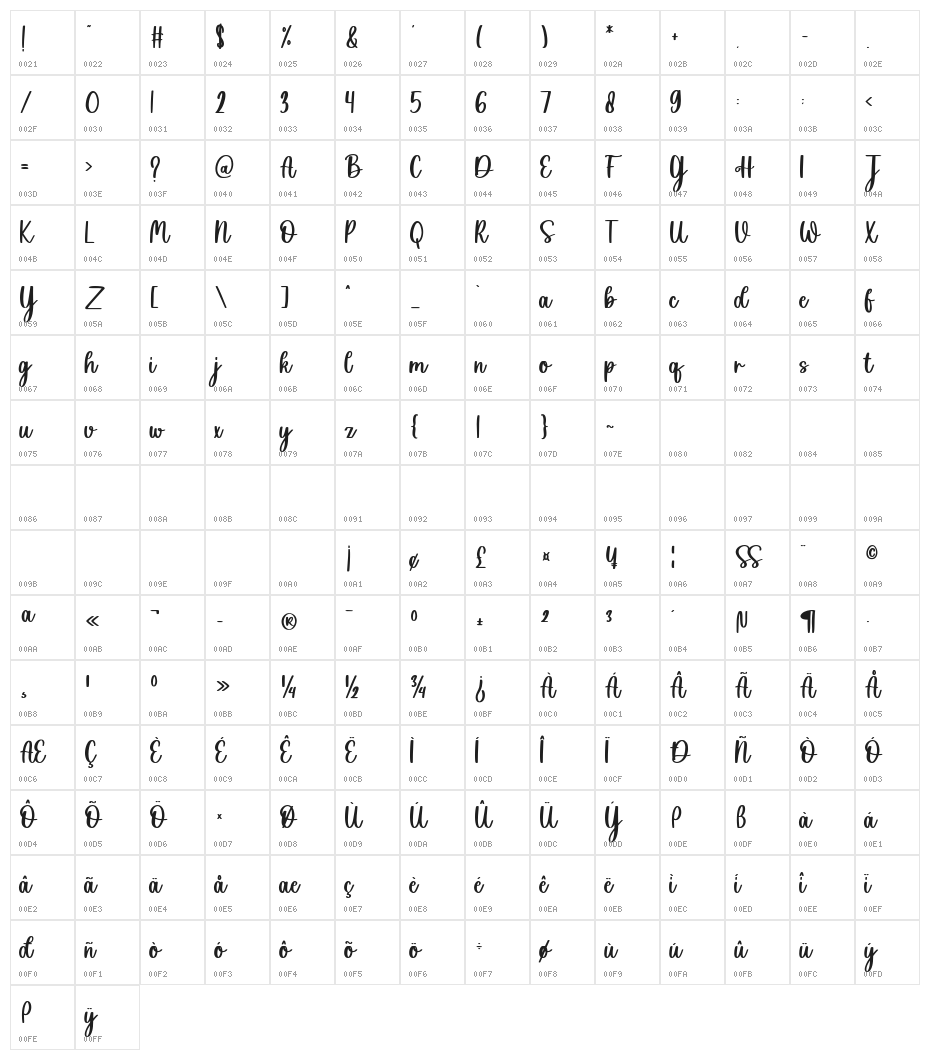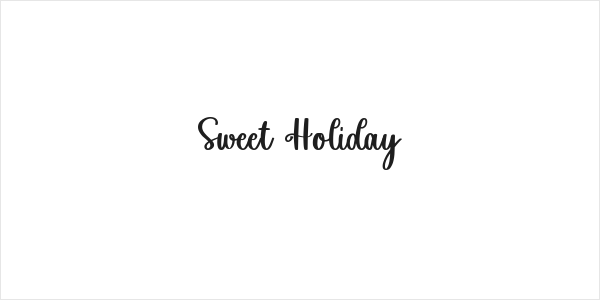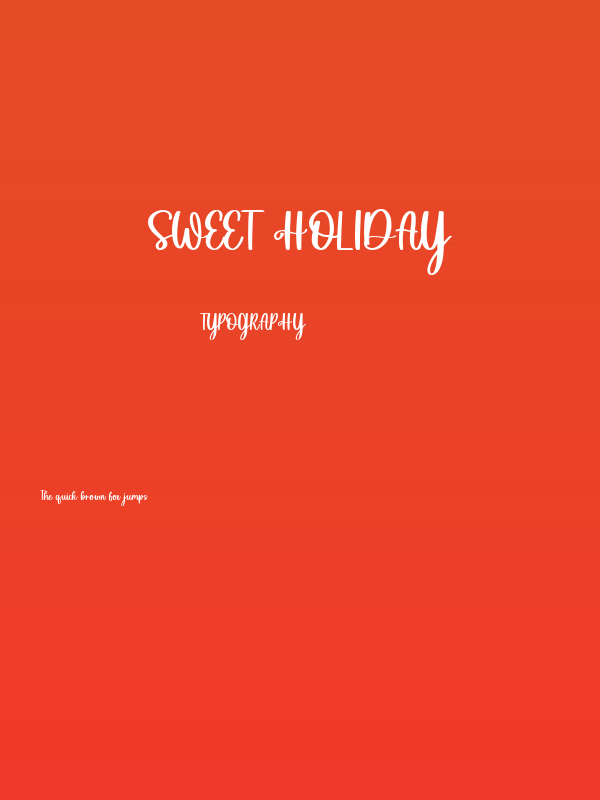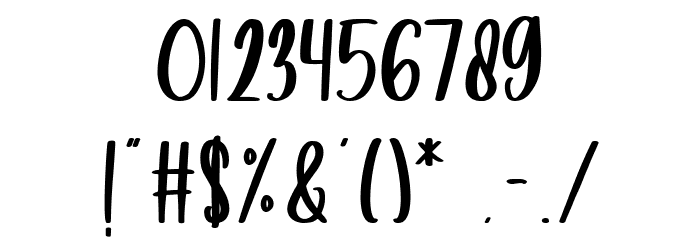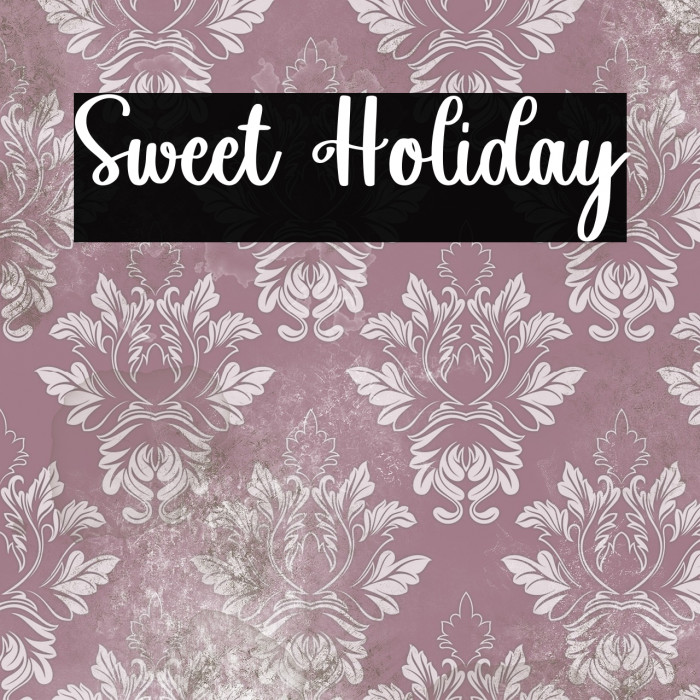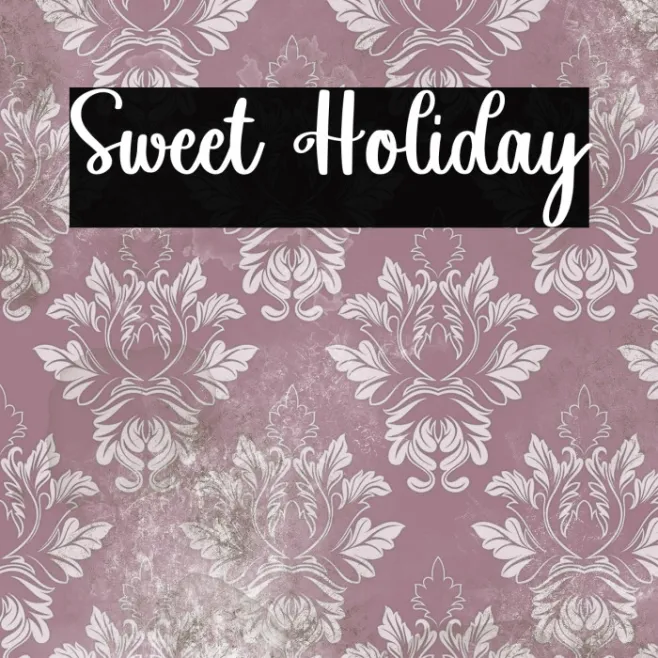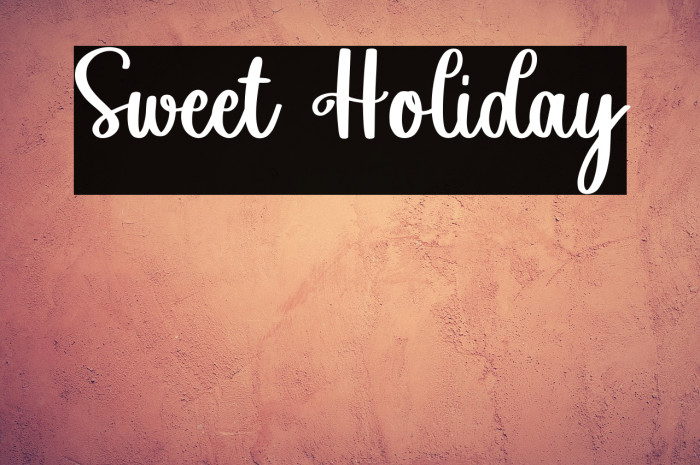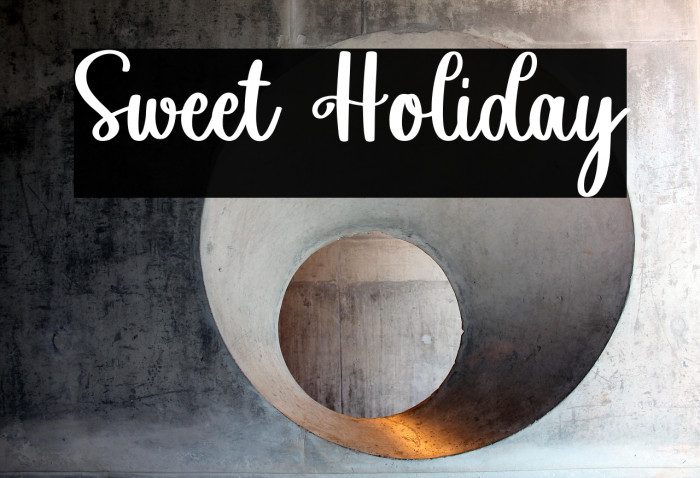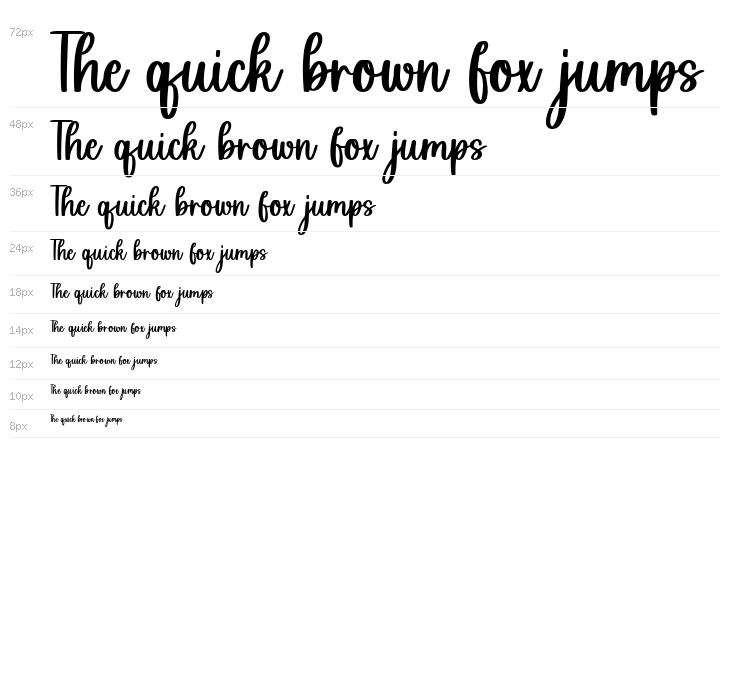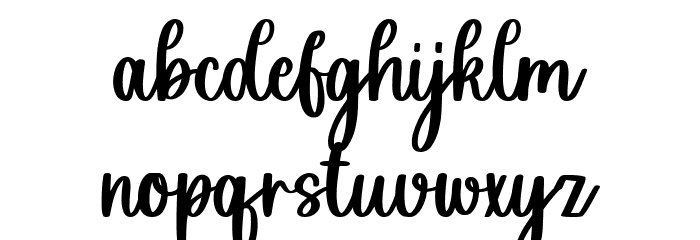
Sweet Holiday Font
Sweet Holiday Description
This font features a playful and elegant script style with a handwritten appearance. The letters are connected smoothly, giving it a flowing and dynamic look. It has a casual yet sophisticated feel, making it versatile for various design projects. The uppercase letters are bold and prominent, while the lowercase letters maintain a consistent flow. The numerals and special characters are designed to match the overall style, ensuring a cohesive look across all text elements. This font is perfect for adding a personal touch to any design.